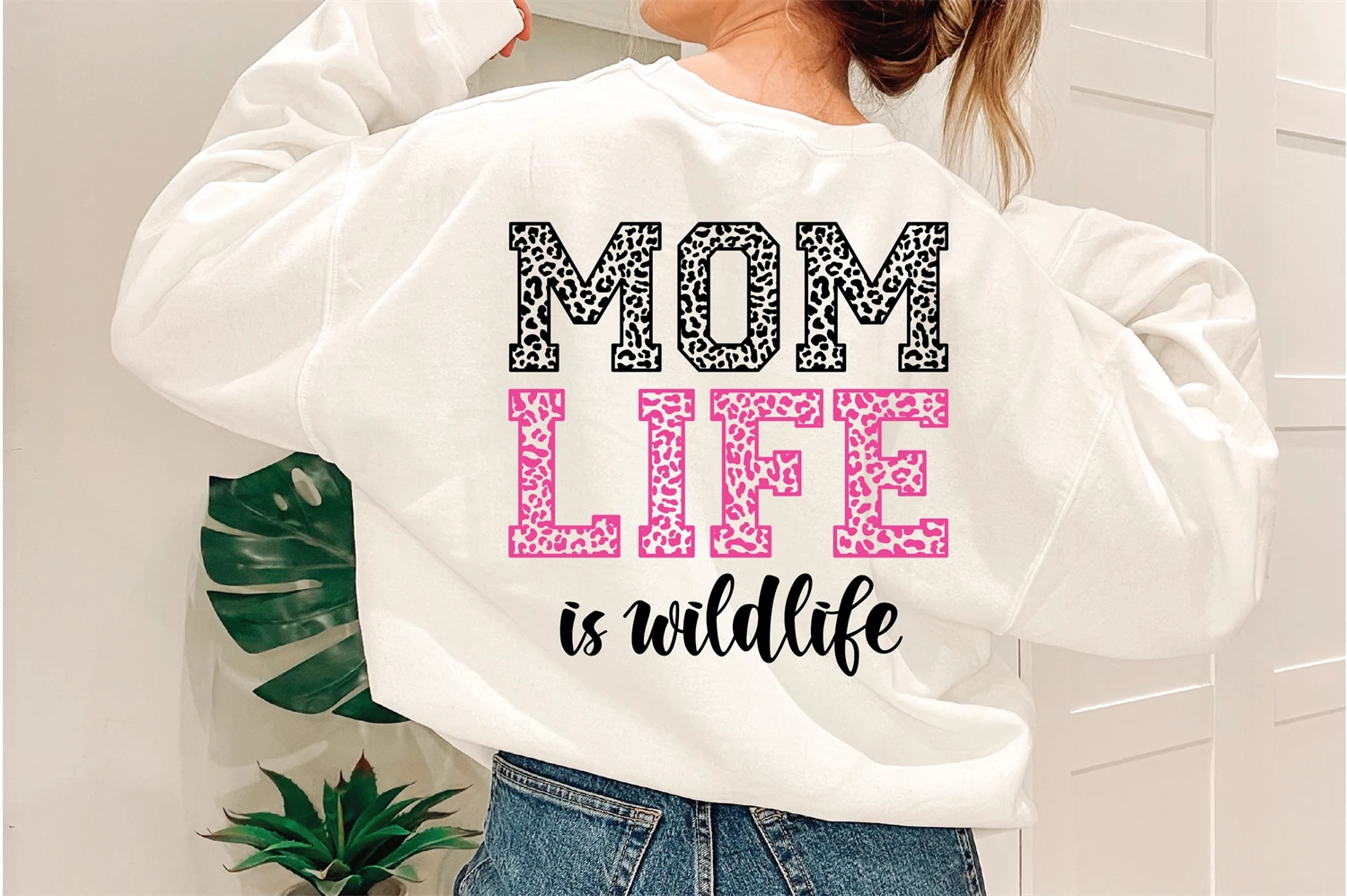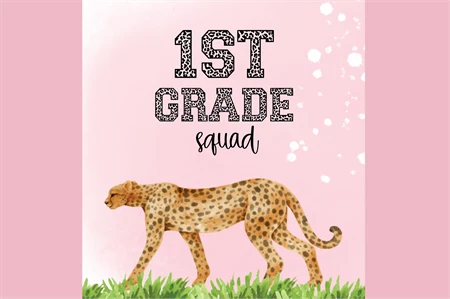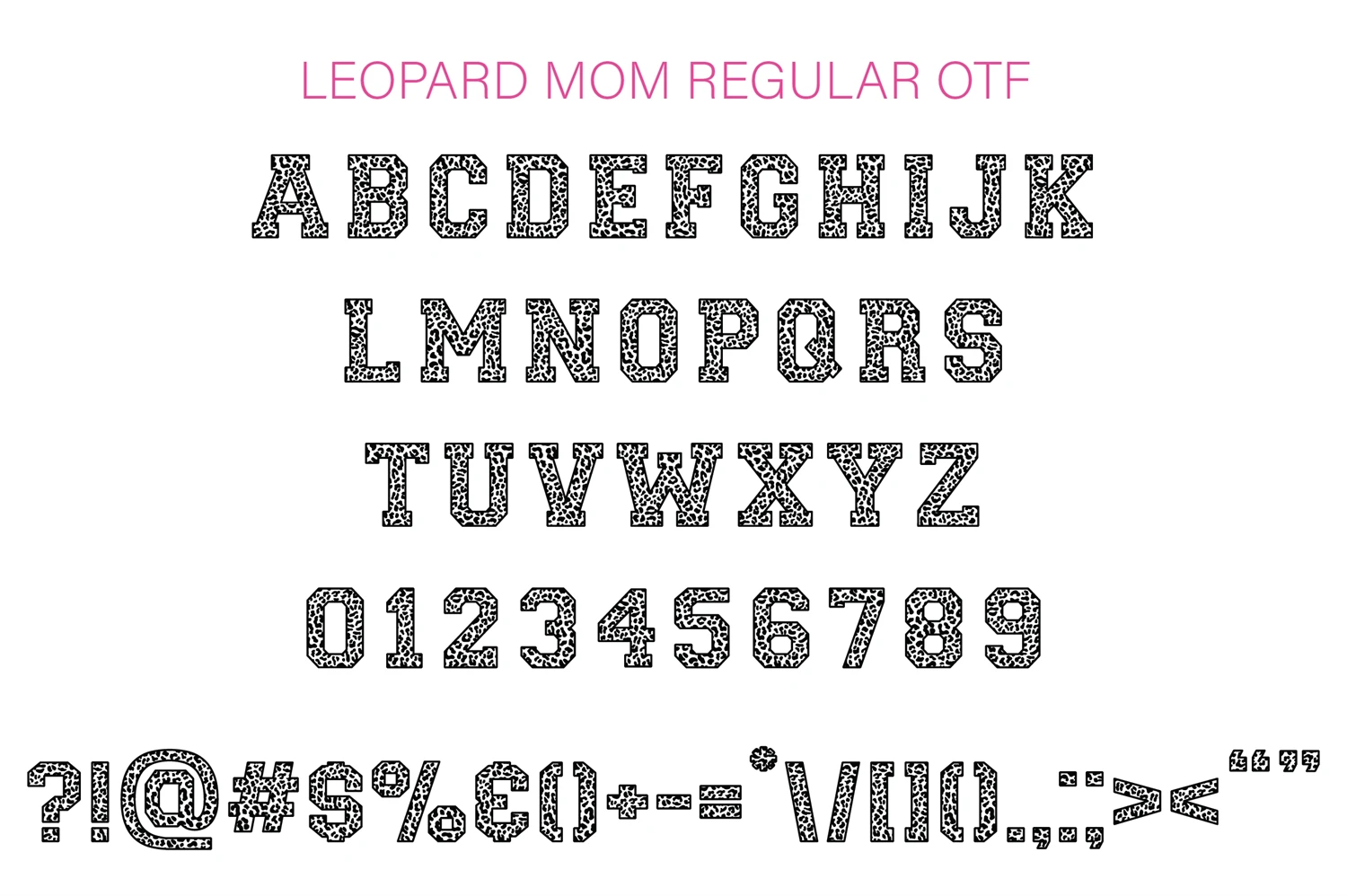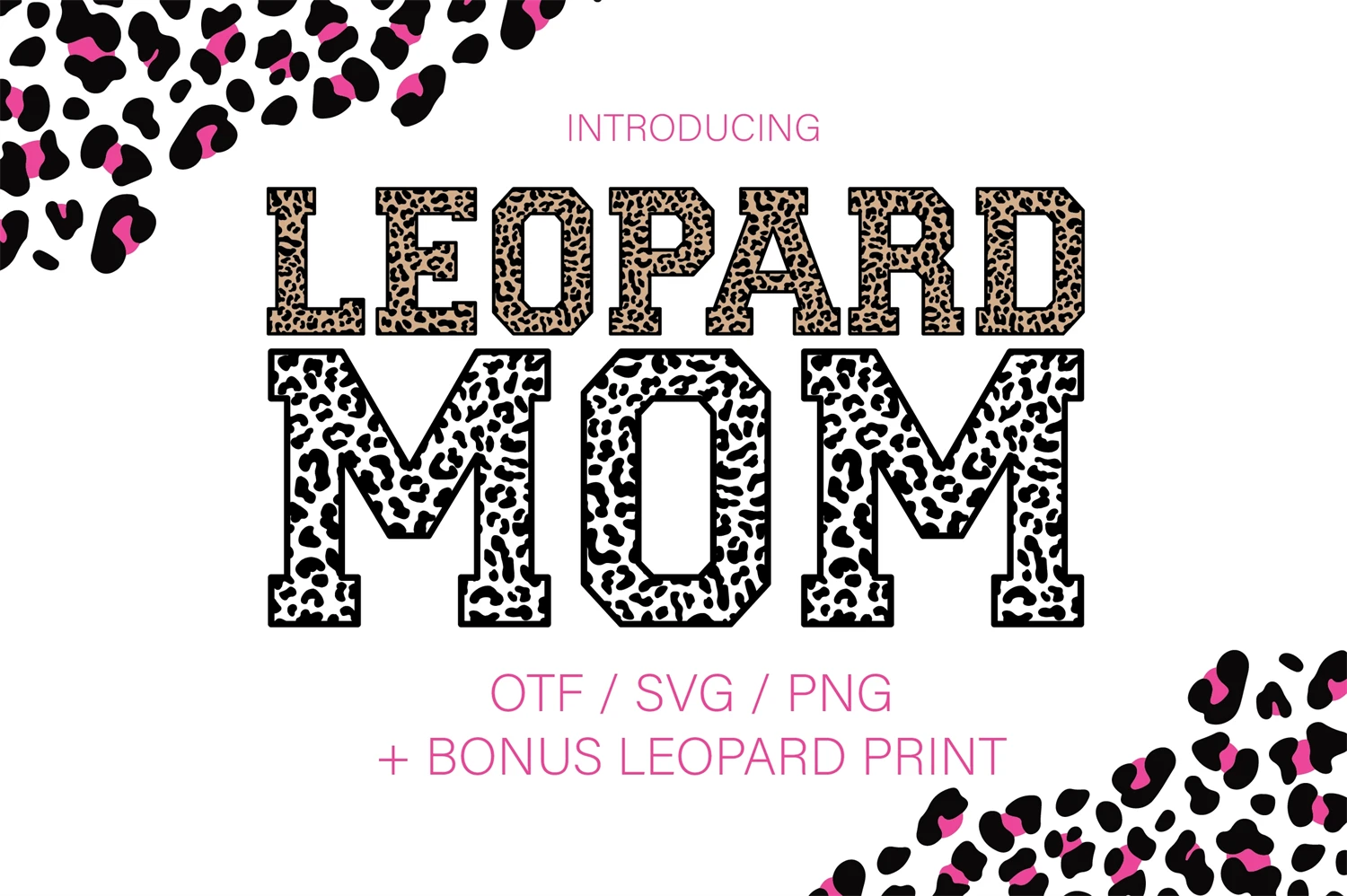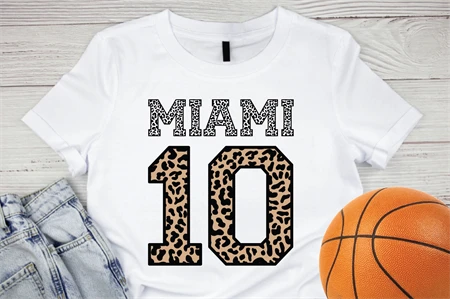
Leopard Mom is a cool decorative font. It is perfect for sports shirts and fun school projects in leopard print style. This font makes it easy to present every artwork!